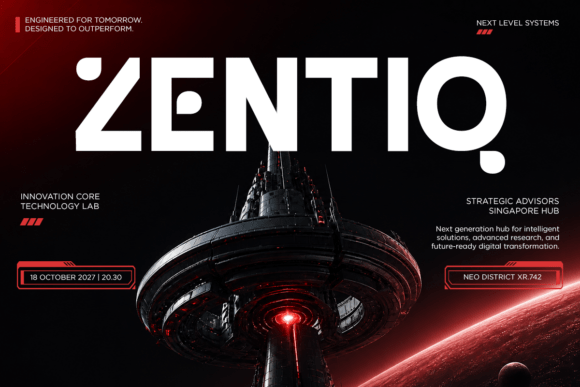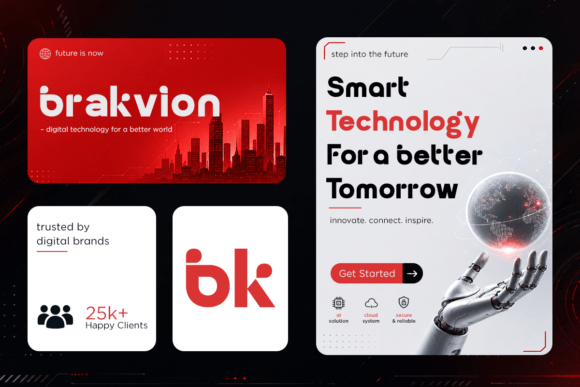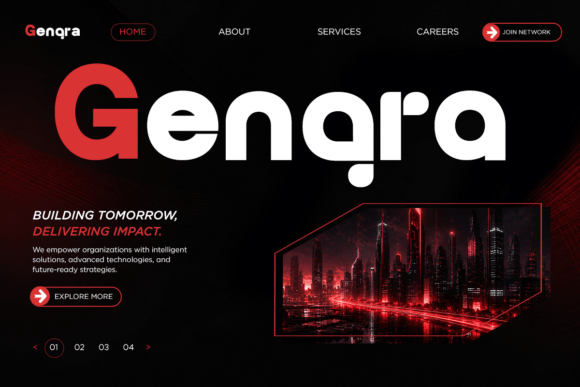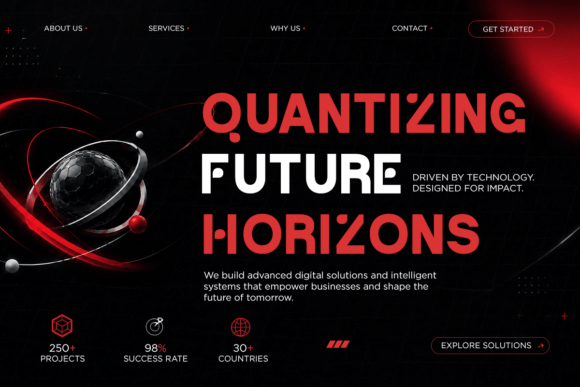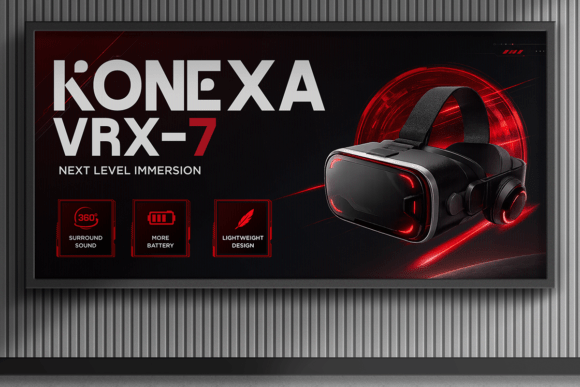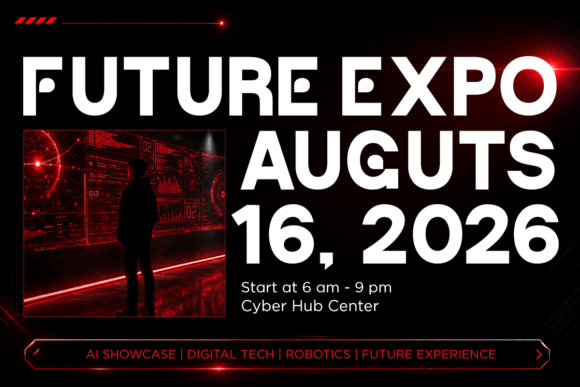
Fagor Font: Elevate Your Designs with a Futuristic Geometric Logo Font
In the realm of modern design, a font can make all the difference in creating a lasting impression. Introducing Fagor, a futuristic geometric logo font that embodies the essence of contemporary branding. With its clean lines, balanced proportions, and bold geometric construction, Fagor is the perfect choice for designers seeking to infuse their projects with a sleek, professional, and technology-driven aesthetic.
The Inspiration Behind Fagor
Fagor draws inspiration from the realms of cyberpunk aesthetics, digital interfaces, and modern startup branding. This font is designed to evoke a sense of futurism, innovation, and forward thinking, making it an ideal choice for designers who want to push the boundaries of creativity. The result is a typeface that exudes a strong visual identity, perfect for creating memorable and impactful visuals.
Key Features of Fagor Font
• Geometric Construction: Fagor’s bold geometric construction gives it a unique and stylish personality, setting it apart from other fonts.
• Balanced Proportions: The font’s balanced proportions ensure excellent readability, making it perfect for a wide range of applications.
• Smooth Curves: Fagor’s smooth curves add a touch of sophistication and elegance, elevating the font’s overall aesthetic.
• Clean and Modern Aesthetic: Fagor’s clean and modern design makes it perfect for contemporary branding projects, including logo design, technology branding, and more.
Perfect for Modern Creative Industries
Fagor is designed to cater to the needs of modern creative industries, including:
• Logo Design: Create stunning logos that make a lasting impression with Fagor’s unique and stylish personality.
• Technology Branding: Perfect for tech companies, startups, and innovative products, Fagor’s futuristic aesthetic is sure to impress.
• Gaming Visuals: Elevate your gaming merchandise, posters, and digital content with Fagor’s bold and geometric design.
• Esports: Fagor’s modern and sleek aesthetic makes it perfect for esports branding, including team logos, jerseys, and marketing materials.
• UI/UX Projects: Create user-friendly and visually stunning interfaces with Fagor’s clean and geometric design.
• Advertising and Posters: Make a bold statement with Fagor’s eye-catching design, perfect for posters, billboards, and digital ads.
• Social Media Graphics: Elevate your social media presence with Fagor’s modern and stylish aesthetic.
• Packaging: Create futuristic and eye-catching packaging designs that stand out on store shelves.
• Futuristic Editorial Layouts: Perfect for editorial projects that require a bold and modern aesthetic.
Why Choose Fagor Font?
Fagor offers a unique combination of style, versatility, and readability, making it an excellent choice for designers and crafters. With Fagor, you can:
• Create Memorable Visuals: Fagor’s unique and stylish personality ensures that your designs will stand out and leave a lasting impression.
• Enhance Readability: Fagor’s clean and geometric design ensures excellent readability, even in small sizes.
• Save Time: With Fagor’s versatility and wide range of applications, you can use it across multiple projects, saving you time and effort.
Fagor Font is a powerful tool for designers and crafters seeking to create stunning visuals that exude a sense of futurism and innovation. With its unique combination of style, versatility, and readability, Fagor is perfect for a wide range of applications, from logo design and technology branding to gaming visuals and editorial layouts. Elevate your designs with Fagor and take your creativity to the next level.